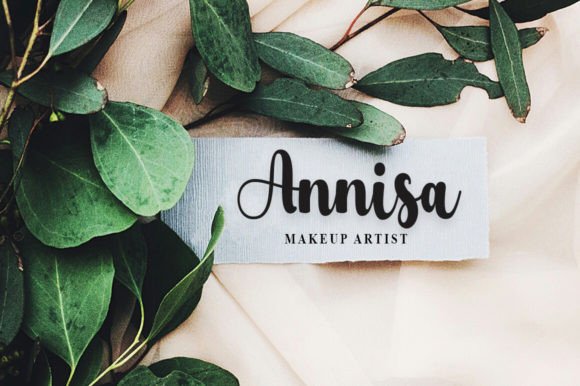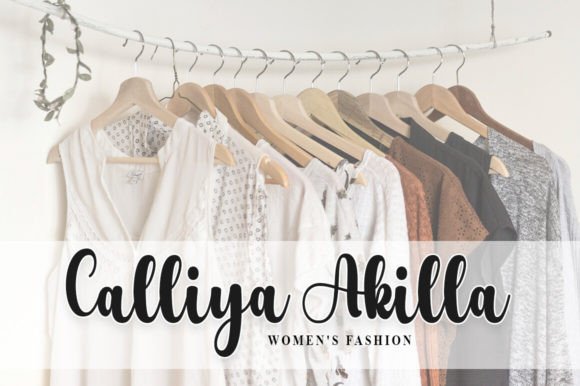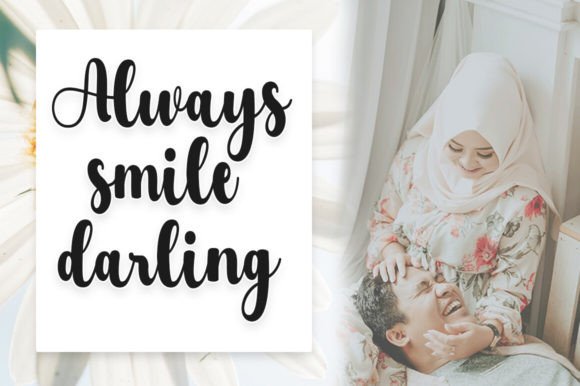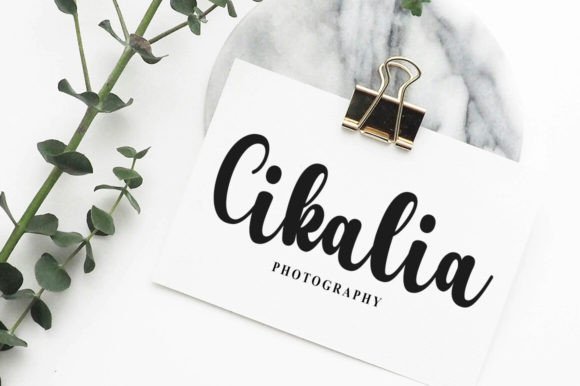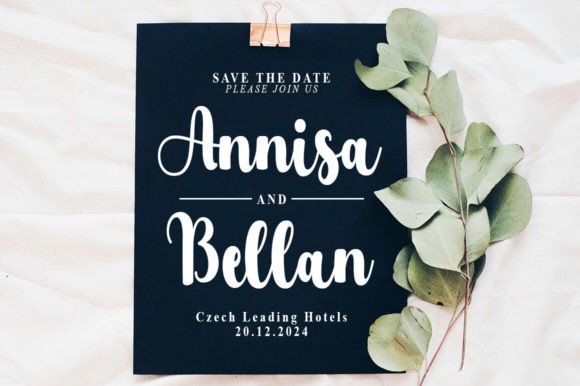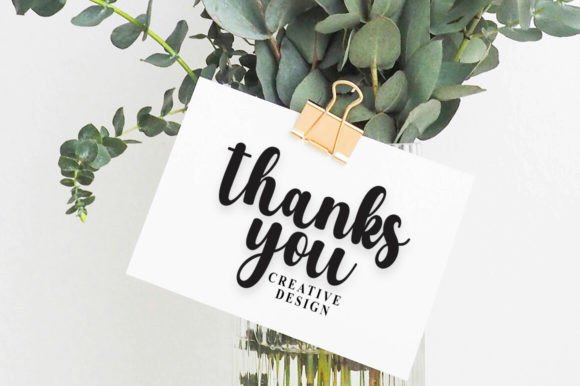
The Quest for the Perfect Font: Discovering Angelia Script
I still remember the countless hours I spent searching for the ideal font for a client’s wedding invitation project. The design brief called for something elegant, feminine, and sophisticated. I scrolled through pages of font libraries, but nothing seemed quite right. That was until I stumbled upon Angelia Script, a beautiful calligraphy font that instantly captured my attention. Its exquisite changing characters and classic decorative copper script with a modern touch won me over, and I’ve been hooked ever since.
A Honest Review: What I Love and What to Consider
• ✅ Smooth, clean, and elegant design that’s perfect for formal and luxurious projects
• ✅ Highly readable, making it suitable for body text and headlines
• ✅ Luxurious letter connections that add a touch of sophistication
• 🤔 Some users may find the font’s classic style too ornate for modern or minimalist designs
• ⚠️ Requires a bit of practice to master the use of OpenType features and glyphs
The Story Behind Angelia Script
Angelia Script was designed with the goal of creating a classic, elegant font that would evoke the luxury and sophistication of copperplate calligraphy. The designer aimed to craft a font that would be both timeless and modern, with a unique blend of traditional and contemporary elements. The result is a beautiful, highly readable font that’s perfect for a wide range of design applications.
Q: Is Angelia Script suitable for body text?
A: Yes, Angelia Script is highly readable and can be used for body text. However, it’s recommended to use it for headlines, titles, and other display text for maximum impact.